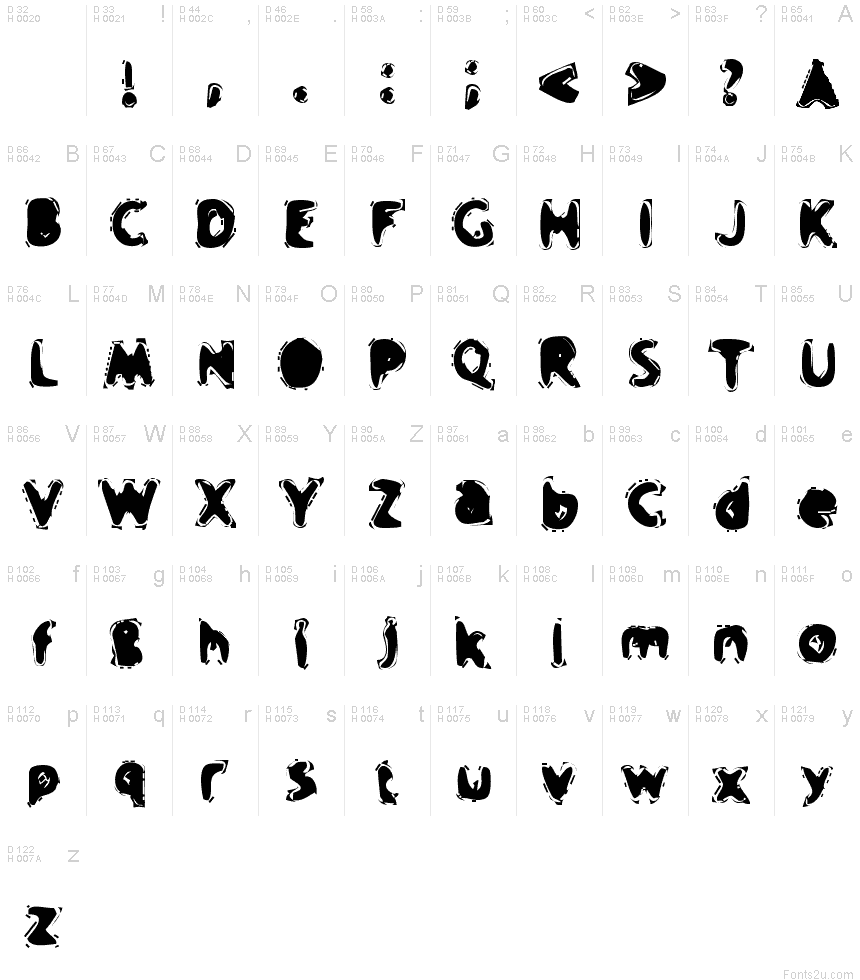
Crap Music
Crap Music font by Mr. Fisk is a free distorted display typeface that looks like it’s been dragged through a muddy mosh pit and photocopied one too many times. Blobby, ink-splattered forms and uneven edges give every word a chaotic, handmade grit, as if someone attacked a gig poster with a fat marker and a leaky stencil. There’s a noisy, low-fi rhythm to the letters that instantly screams underground flyers, basement shows, and DIY zines.
Using Crap Music, this free font shines on band logos, punk or metal posters, album covers, skate graphics, horror titles, and noisy YouTube thumbnails. The irregular shapes grab attention at large sizes, while the broken silhouettes add texture even from a distance. Pair this wild typeface with a plain, narrow sans serif for body copy to keep your layouts readable while the headline does all the screaming.